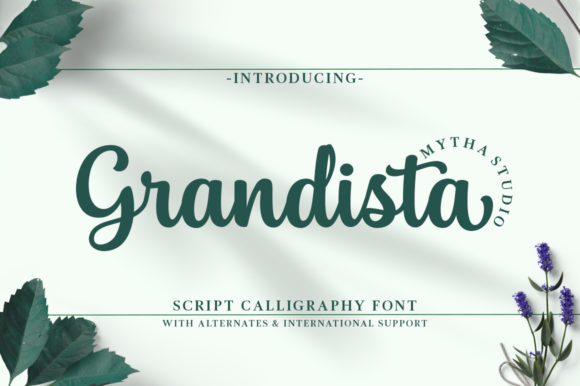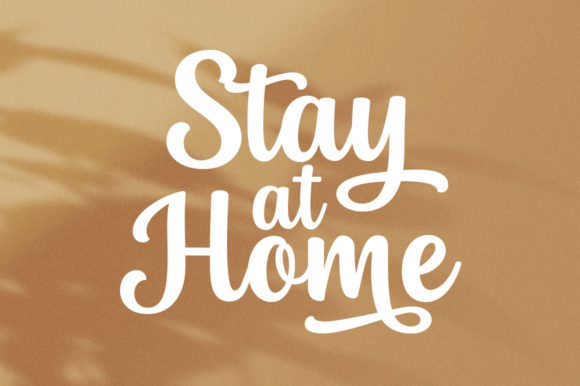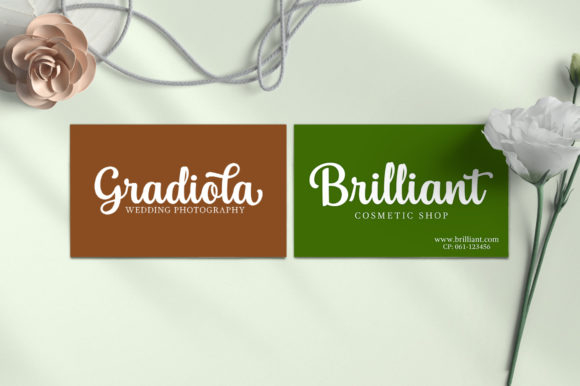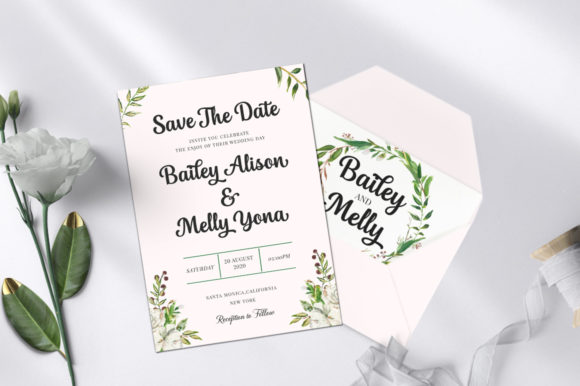
Grandista Font: Elegant Calligraphy Script for DIY & Branding
About the Grandista Font
Make a bold statement with Grandista Font, a powerful and memorable font. Grandista simplifies elegance into one truly outstanding handwritten font. Whether you’re looking for fonts for Instagram or calligraphy scripts for DIY projects, this font will turn any creative idea into a true piece of art!
Grandista’s elegant yet informal style makes it ideal for headlines, short text blocks on branding materials, or even stylish packaging designs. It excels in projects requiring a touch of handcrafted charm, such as invitations, social media graphics, or short marketing slogans. However, its handwritten nature makes it unsuitable for lengthy body text or UI elements where readability is paramount.
Consider pairing Grandista with a clean sans-serif like Open Sans for a balanced contrast, or a classic serif such as Garamond for a more traditional feel. For a more modern look, a geometric sans-serif like Montserrat would work well. These pairings provide strong legibility for supporting text while allowing Grandista to shine as a focal point.
Grandista projects an overall personality of sophisticated playfulness. It’s bold yet approachable, making it perfect for brands seeking a balance between high-end aesthetic and friendly approachability.
Grandista Font Usage Examples
Grandista Font Example